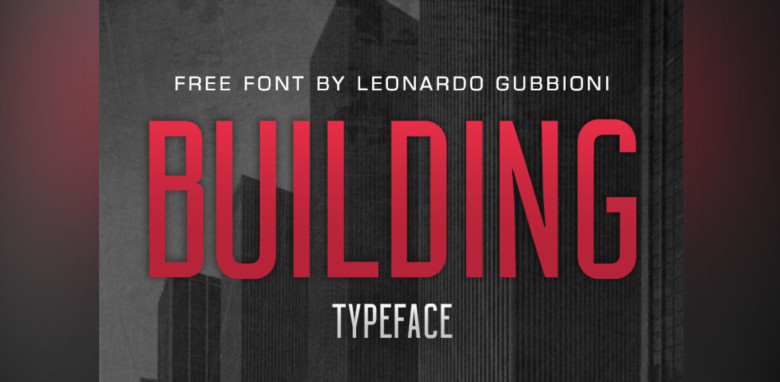
BUILDING Typeface
Introducing BUILDING Typeface. Designed by Leonardo Gubbioni, Building is a font character title, with a strong visual impact. It’s primary purpose is to capture the attention in a world where you are constantly assaulted by continuous sensory stimuli. Rooted in style “deco”, art movement characterized by the use of heavy metals such as steel and aluminium.